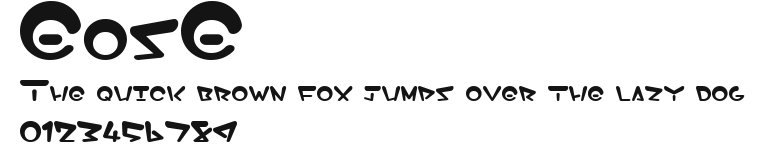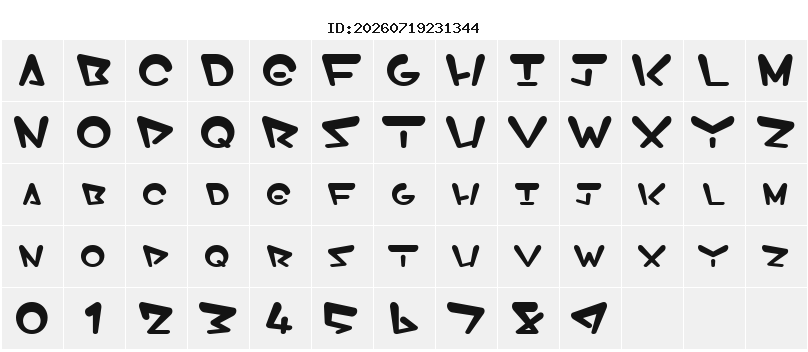
• Font Name: EosE
About EosE.ttf
EosE.ttf is a modern, elegant sans-serif font designed for ultimate readability and visual harmony. Perfect for branding, headlines, web design, and print materials.